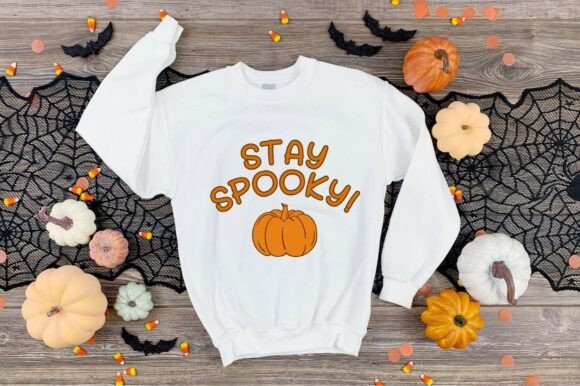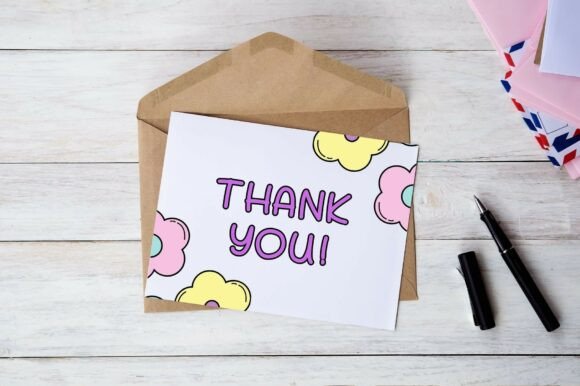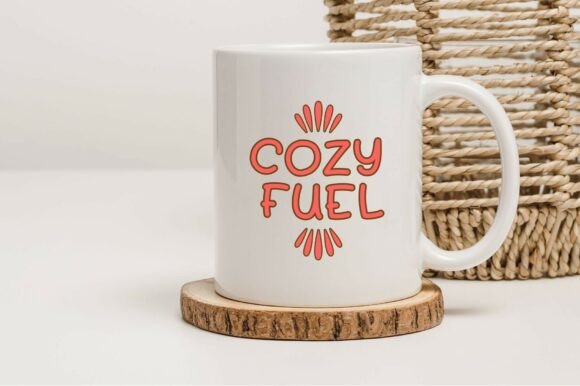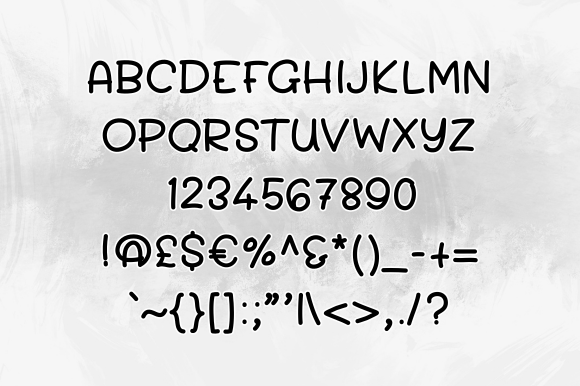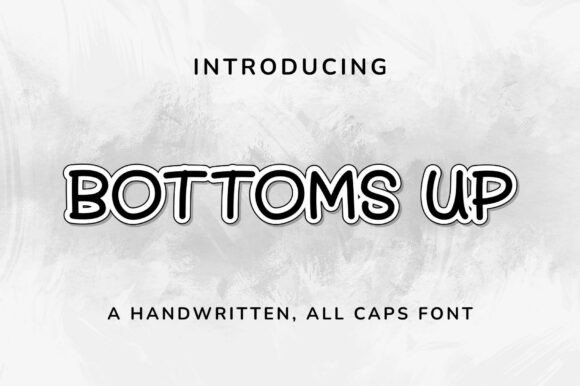
Unleash Your Creativity with the Delightful “Bottoms Up” Font
Have you ever been in the midst of a design project, only to find yourself stuck on one thing: the perfect font? I recall a particularly frustrating experience while working on a vibrant t-shirt design project. My client wanted a font that was playful, yet elegant; bold, yet charming. After scouring the internet for hours, I stumbled upon the “Bottoms Up” font. And let me tell you, it was love at first sight! ✨
Crafted in all caps, “Bottoms Up” offers an enticing blend of regular and bold weights, fully supporting every character of the English alphabet. The font comes with standard punctuation glyphs, ensuring you have everything you need for your typography journey.
• ✨ Playful yet elegant: “Bottoms Up” strikes the perfect balance between playfulness and sophistication, making it ideal for a range of creative pursuits.
• ✅ Fully supporting English alphabet: With both regular and bold weights, you can use “Bottoms Up” for a variety of design projects, from t-shirt designs to captivating templates.
A Few Quirks to Consider
While “Bottoms Up” is an excellent font, there are a few things to keep in mind:
• ⚠️ All-caps design: As “Bottoms Up” is crafted in all caps, it may not be the best choice for projects requiring mixed case text.
• 🤔 Limited OpenType features: While “Bottoms Up” supports standard punctuation glyphs, it may not offer the advanced OpenType features found in some other fonts.
The Story Behind “Bottoms Up”
While the true story behind “Bottoms Up” remains a mystery, it’s easy to imagine that the font was created by a designer with a passion for playful typography. Perhaps they were inspired by the carefree spirit of summer, and the joy of sipping a cold drink with friends. Whatever the inspiration, “Bottoms Up” is a font that is sure to bring a smile to your face and a touch of whimsy to your designs.
Q: Is “Bottoms Up” suitable for body text?
A: While “Bottoms Up” is a beautiful font, it’s best suited for headlines and titles. Its playful design may not be ideal for extended body text.